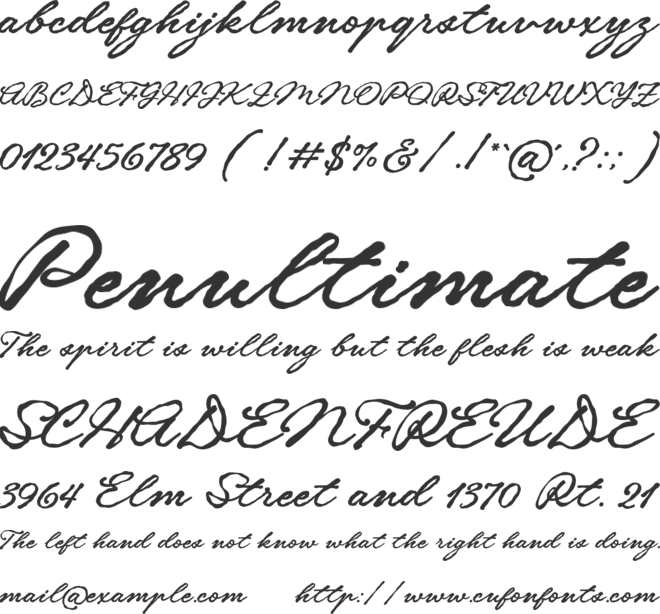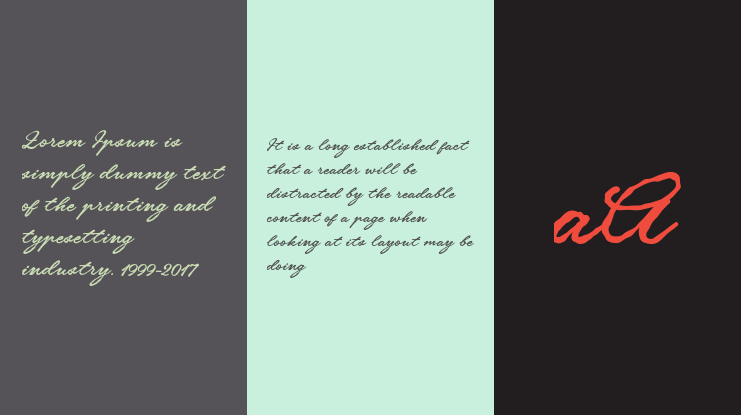
Achilleus Font
Meet Achilleus Script — a dreamy, whimsical handwritten script font that brings warmth, personality, and effortless elegance to every design it touches. Crafted by Namara Creative, Achilleus Script captures the soul of vintage calligraphy with a contemporary, playful twist, bold ink strokes, expressive swooshes, and lively letterforms that feel genuinely hand-drawn.